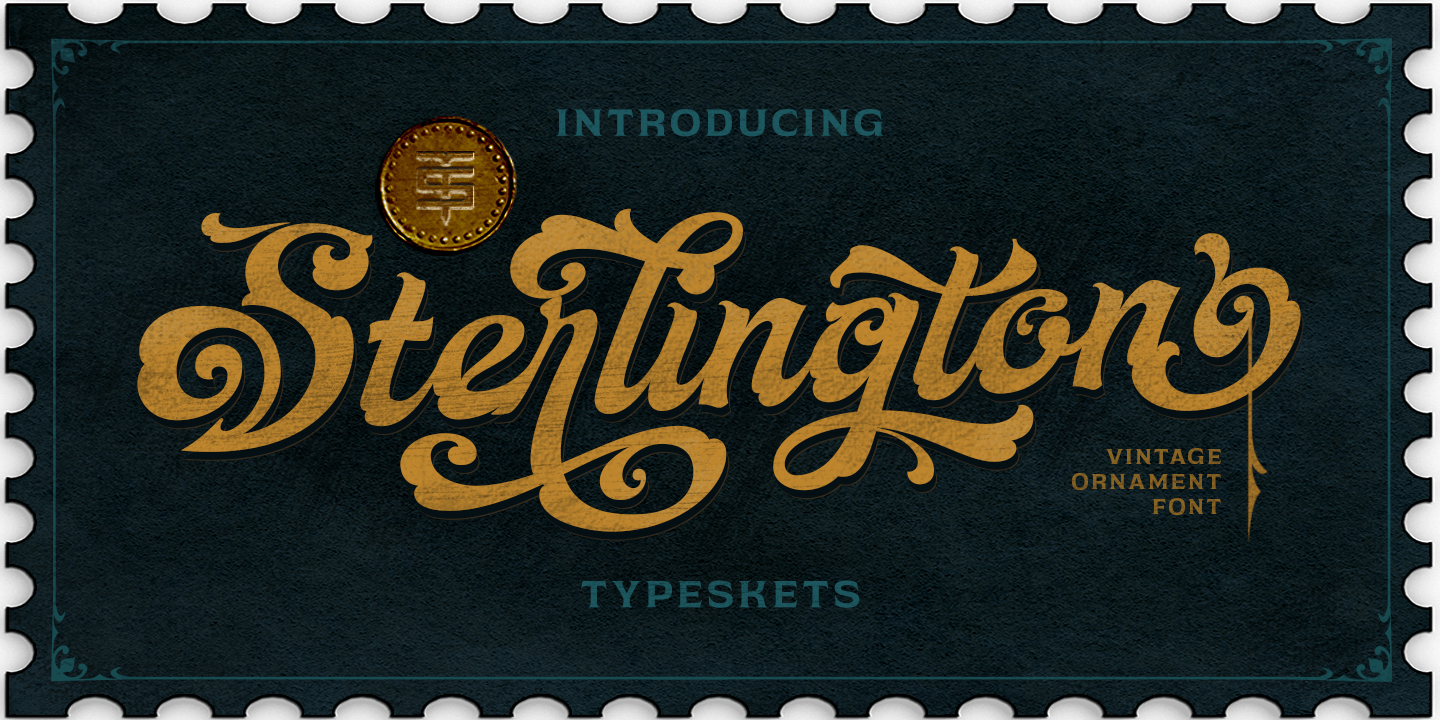
Sterlington Font is perfect for luxury estate branding, high-end financial services, prestigious law firm communications, exclusive private club materials, upscale hospitality marketing, elite educational institutions, premium real estate presentations, and distinguished heritage brand campaigns. This aristocratic typeface excels in applications where refinement, prestige, and institutional authority are essential for connecting with affluent audiences who appreciate traditional excellence and the distinguished heritage of established luxury brands.
What makes Sterlington Font so exciting is its masterful embodiment of aristocratic elegance and institutional prestige that perfectly captures the essence of established wealth and refined sophistication. The font features graceful, traditional letterforms with distinguished characteristics that evoke grand estates and exclusive gentleman's clubs. Its prestigious character conveys heritage, authority, and refined taste - essential qualities for brands serving affluent clientele, luxury markets, and distinguished institutions who value traditional craftsmanship, generational excellence, and the timeless sophistication of aristocratic heritage.
The Sterlington Font family includes multiple distinguished weights and aristocratic variations that enhance its luxury appeal. Some versions feature subtle classical flourishes that reflect traditional British typography and estate signage, while others provide streamlined variants that maintain the font's prestigious character with enhanced readability for modern luxury applications and commercial high-end branding communications.
Whether you're creating branding for luxury services, designing materials for prestigious institutions, or developing marketing campaigns for high-end lifestyle brands, Sterlington Font Free Download provides the aristocratic authority your project requires. The font's distinguished character makes it particularly effective for brands targeting affluent audiences who appreciate heritage luxury, traditional excellence, and the refined sophistication of established aristocratic elegance.
Embrace distinguished heritage with Sterlington Font and elevate your luxury communications with typography that embodies aristocratic refinement and the prestigious tradition of institutional excellence.